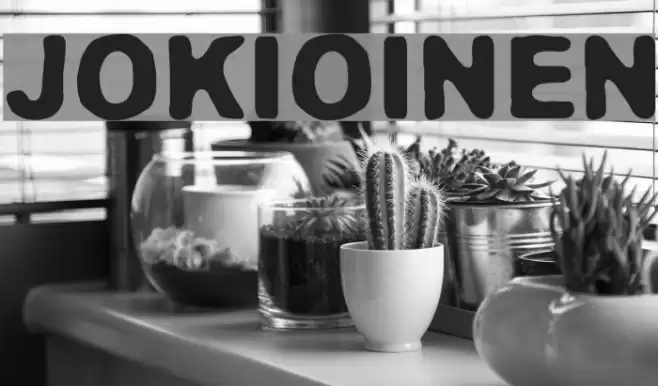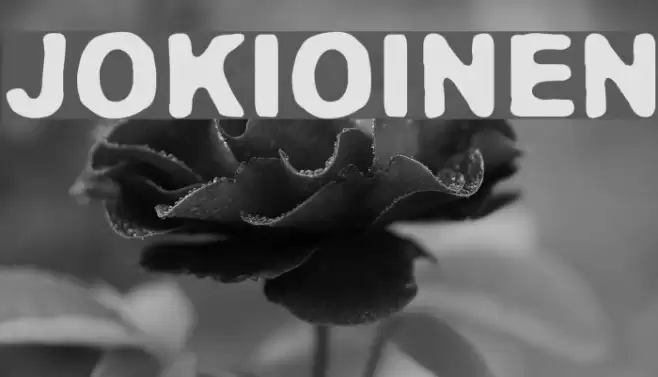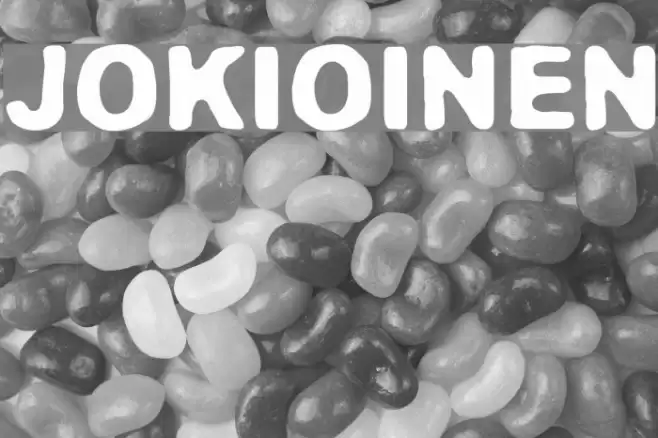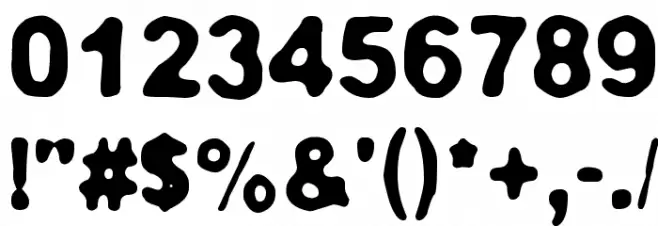
Jokioinen Font
Jokioinen Description
This font features bold, rounded characters with a playful and friendly appearance. The letters are uniformly thick, giving a sense of consistency and strength. The rounded edges and slightly irregular shapes add a whimsical, hand-drawn feel, making it suitable for informal and creative projects. The numbers and special characters maintain the same boldness and rounded style, ensuring a cohesive look across all text elements. This font's unique style makes it stand out, perfect for capturing attention in various design contexts.
A bold, rounded font with a playful, hand-drawn style from Uncategorized fonts.
- Proposed Projects: Ideal for children's books, playful branding, posters, and creative digital content.
- Overall Style: Playful, Whimsical